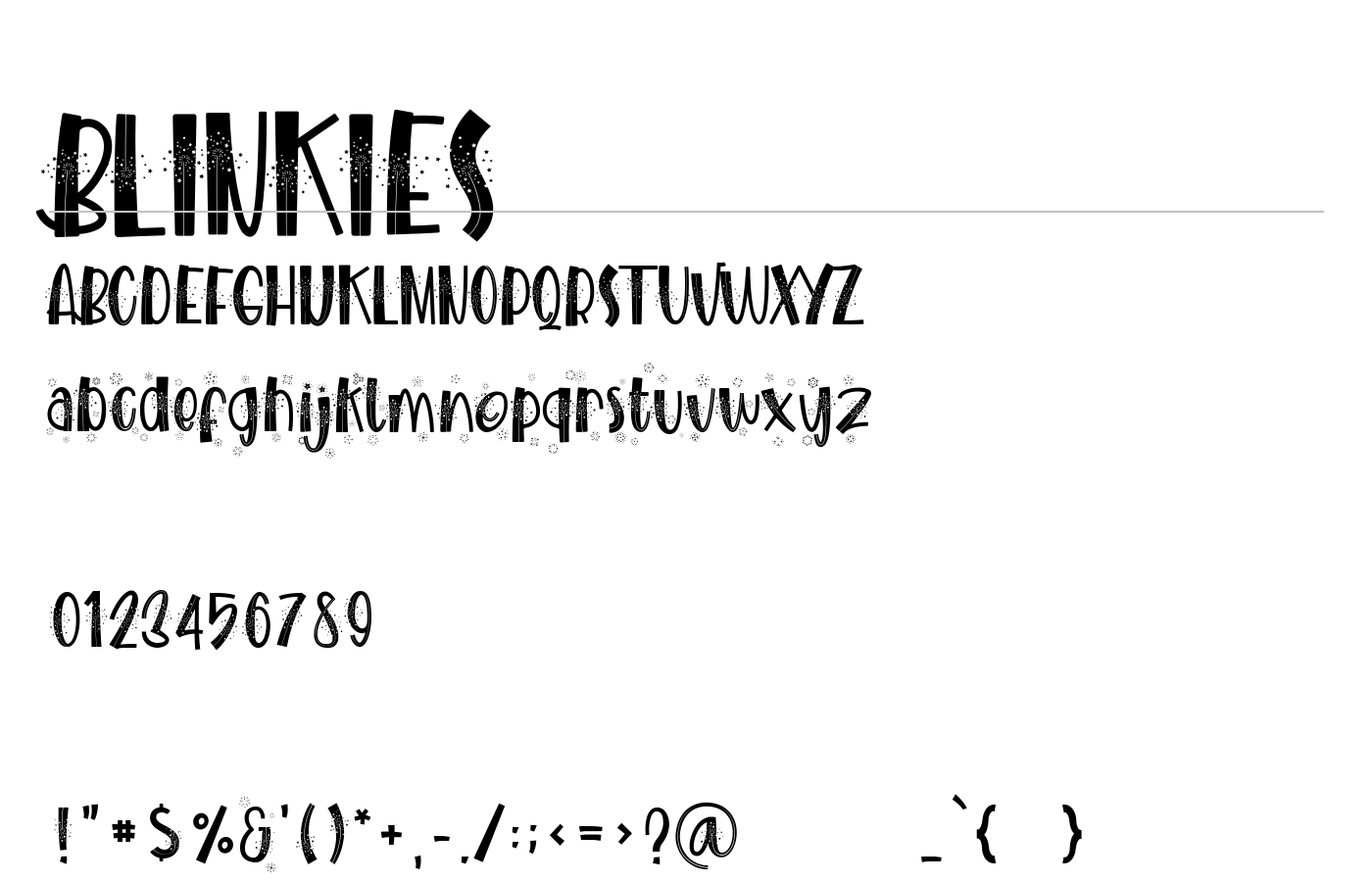
Blinkies is a playful, tall sans serif font featuring a hand-drawn, slightly irregular style with decorative star-like speckles throughout. Its narrow, upright letterforms and quirky shapes give it a fun, whimsical vibe, perfect for eye-catching headlines, children’s designs, or festive branding that wants to convey energy and creativity. This font works best where a casual, lively mood is desired rather than formal or body text use.
BLINKIES Font
About BLINKIES Font
| Font family | BLINKIES Font |
| Designer | lemoncraft 2018 |